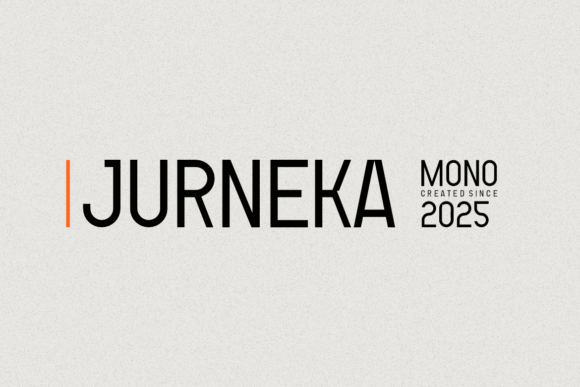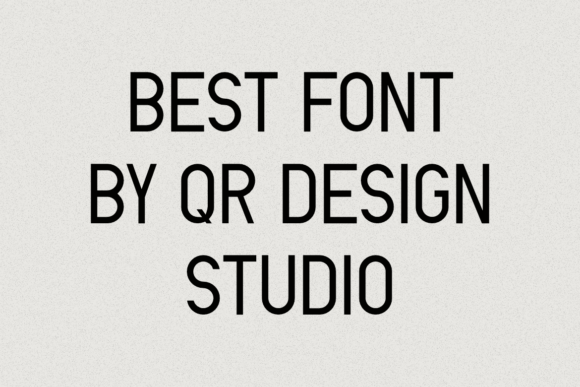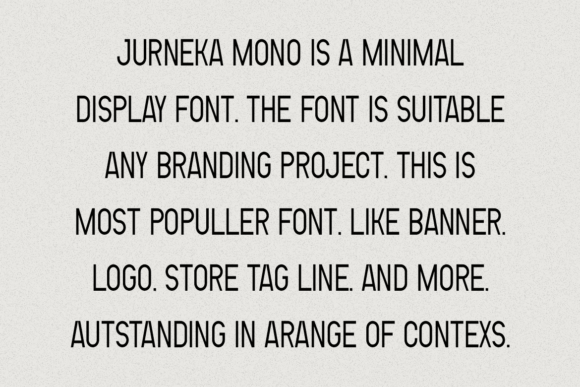
Introduction to Jurneka Mono Font
Do you remember the excitement of creating a logo for a new business or a personal project? The anticipation of seeing your design come to life, and the satisfaction of knowing it will represent your brand or idea for years to come? For designers, this feeling is what drives us to create something truly special. And when it comes to choosing the perfect font for our high-quality designs, we often look for that extra touch that sets our work apart.
That’s where the Jurneka Mono Font comes in – a timeless sans serif font that adds a unique and beautiful touch to any design. With its versatility and elegant lines, it’s the perfect design resource for creating eye-catching logos, branding, and quotes. Whether you’re working on a creative project with a transparent background or need a font that makes a statement, Jurneka Mono Font is a valuable asset for designers looking to elevate their work.
Key Features of Jurneka Mono Font
- High-quality, monospaced font perfect for coding, terminal, and creative projects.
- Comes with a transparent background, allowing for easy customization and versatility.
- Supports a wide range of languages, including Latin, Cyrillic, and Greek alphabets.
- Includes multiple font styles, including regular, bold, italic, and bold-italic, for added flexibility.
- Designed at 300 DPI resolution, ensuring crisp and clear rendering on various devices and screens.
Honest Review: Jurneka Mono Font
As a designer, I’m always on the lookout for high-quality fonts that can elevate my creative projects. The Jurneka Mono Font has caught my attention, and I’m excited to share my thoughts on it.
- ✨ Clean and minimalist design: The Jurneka Mono Font has a sleek, modern look that works well for digital design projects.
- ✨ Transparent background: The font has a transparent background, making it easy to use on any design surface.
However, I do have some reservations:
- ⚠️ Limited character set: The font only comes with a limited character set, which may not be suitable for all design projects.
- ⚠️ Not ideal for large text: The font may not be the best choice for large text, as it can become difficult to read.
Overall, I think the Jurneka Mono Font is a great addition to any designer’s toolkit. While it has some limitations, its clean design and transparent background make it a great resource for creative projects. If you’re looking for a simple, modern font for your next design project, the Jurneka Mono Font is definitely worth checking out.
Tips for Getting the Most Out of Jurneka Mono Font
To get the most out of Jurneka Mono Font, experiment with different font sizes, colors, and arrangements. This font is particularly well-suited for use on a transparent background, so don’t be afraid to get creative with your design.
Common Use Cases for Jurneka Mono Font
Jurneka Mono Font is a versatile design resource that can be used in a variety of creative project types, including presentations, documents, social media graphics, and more. Its clean and modern look makes it perfect for use in a variety of industries, from technology to healthcare.